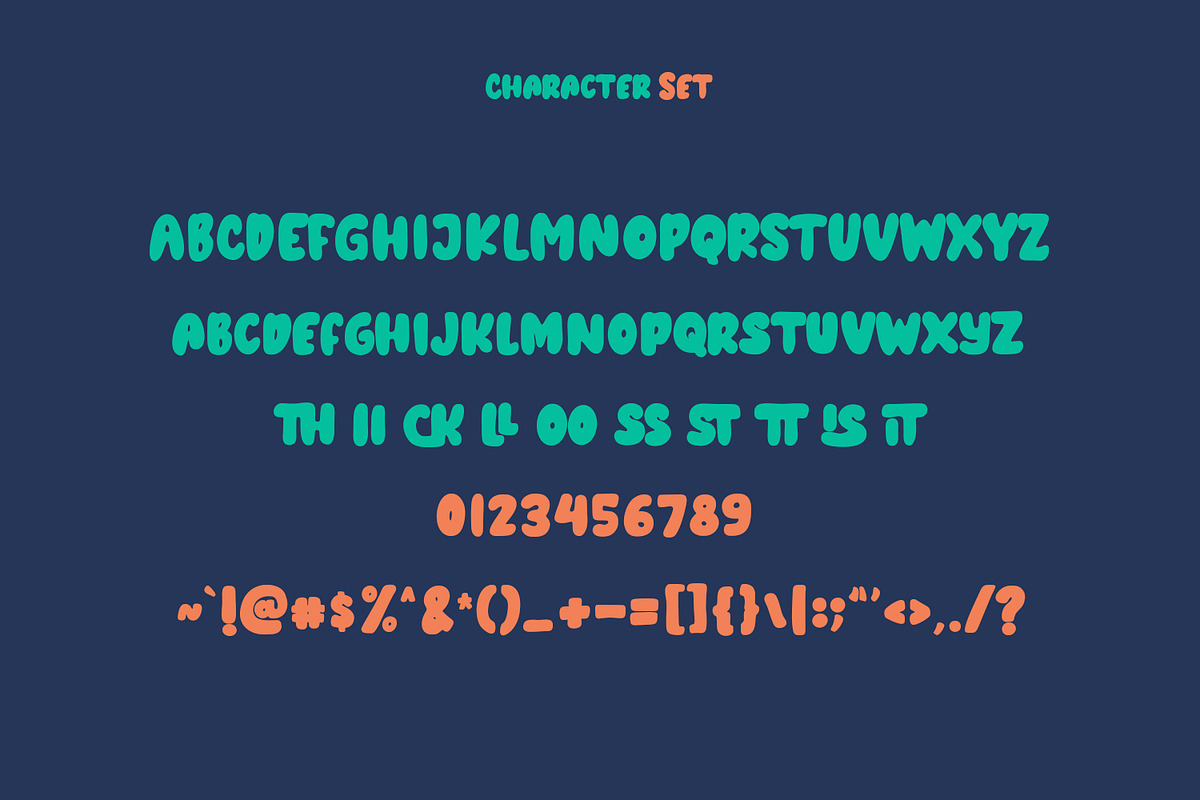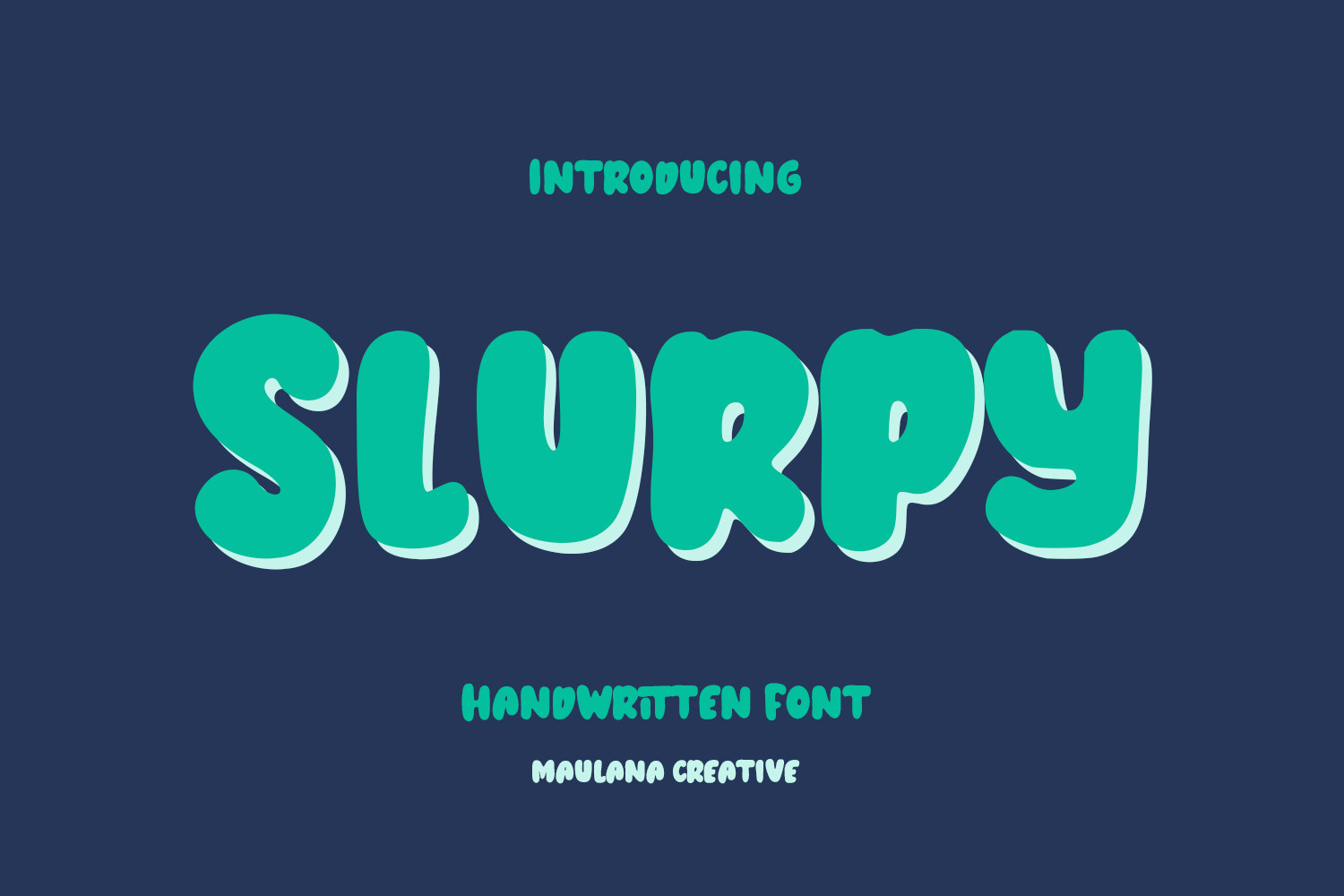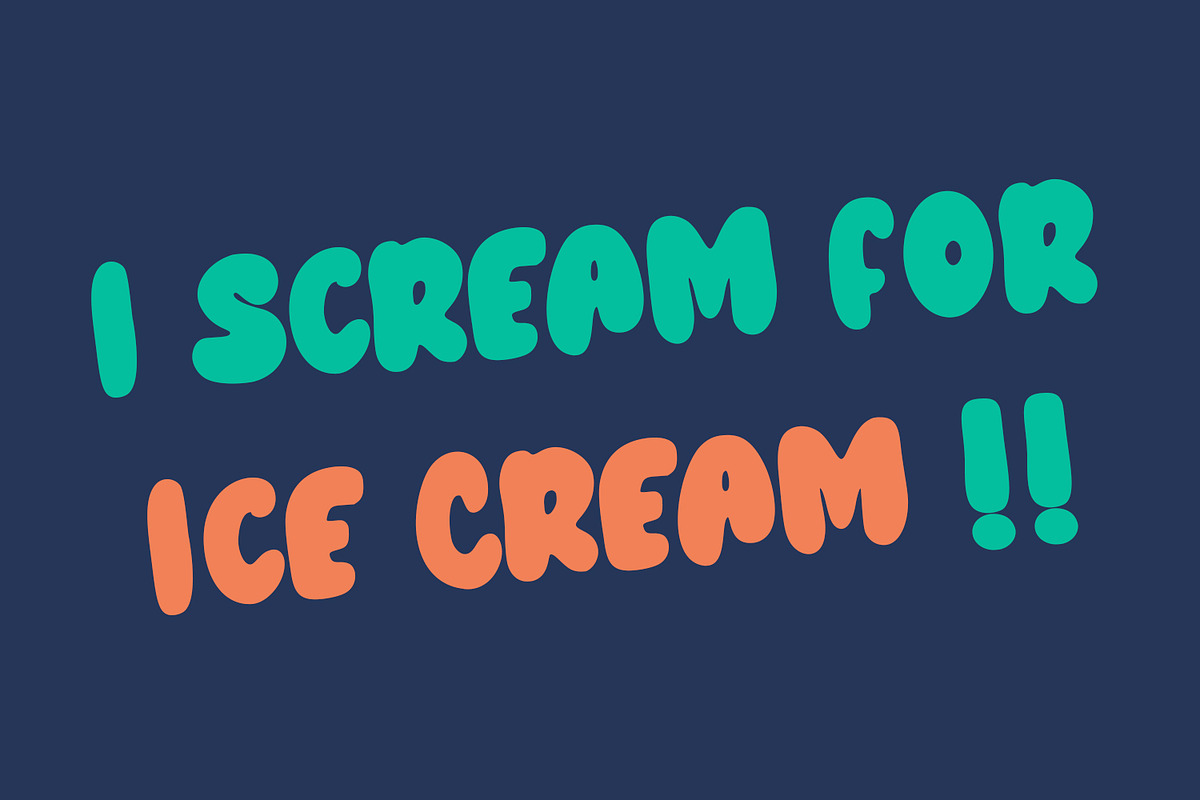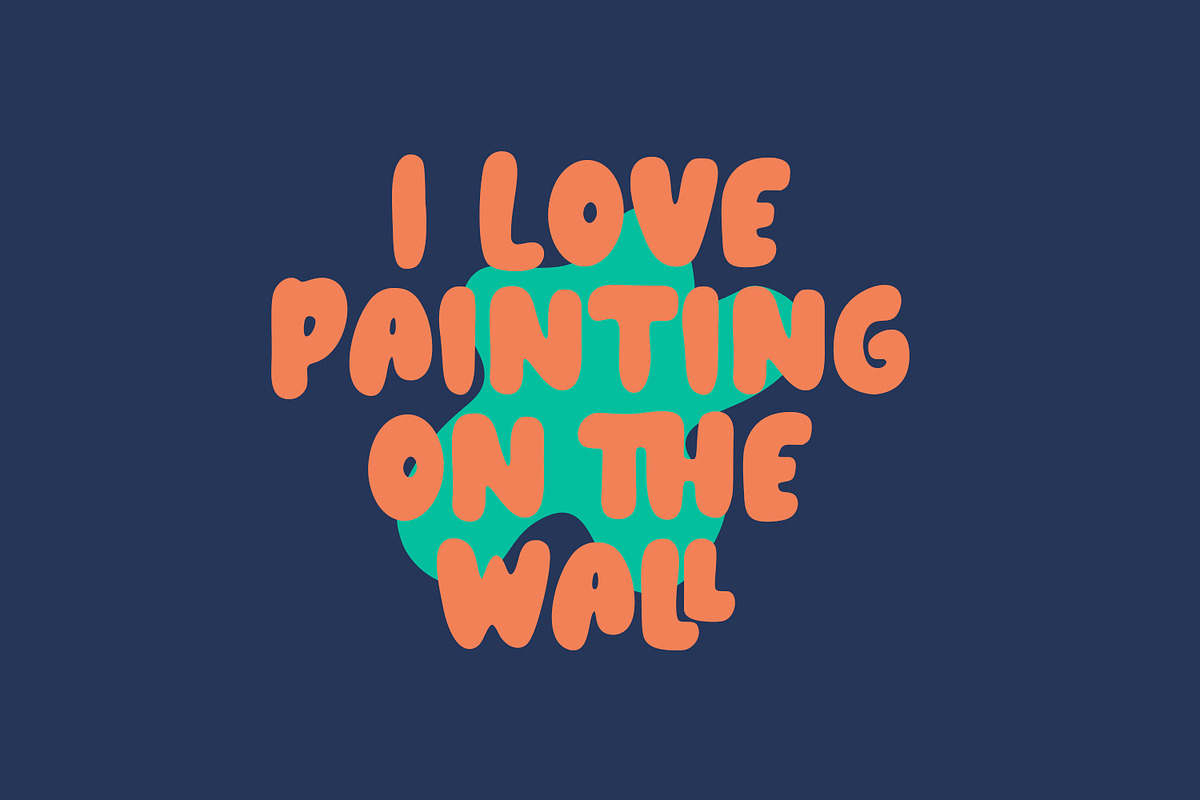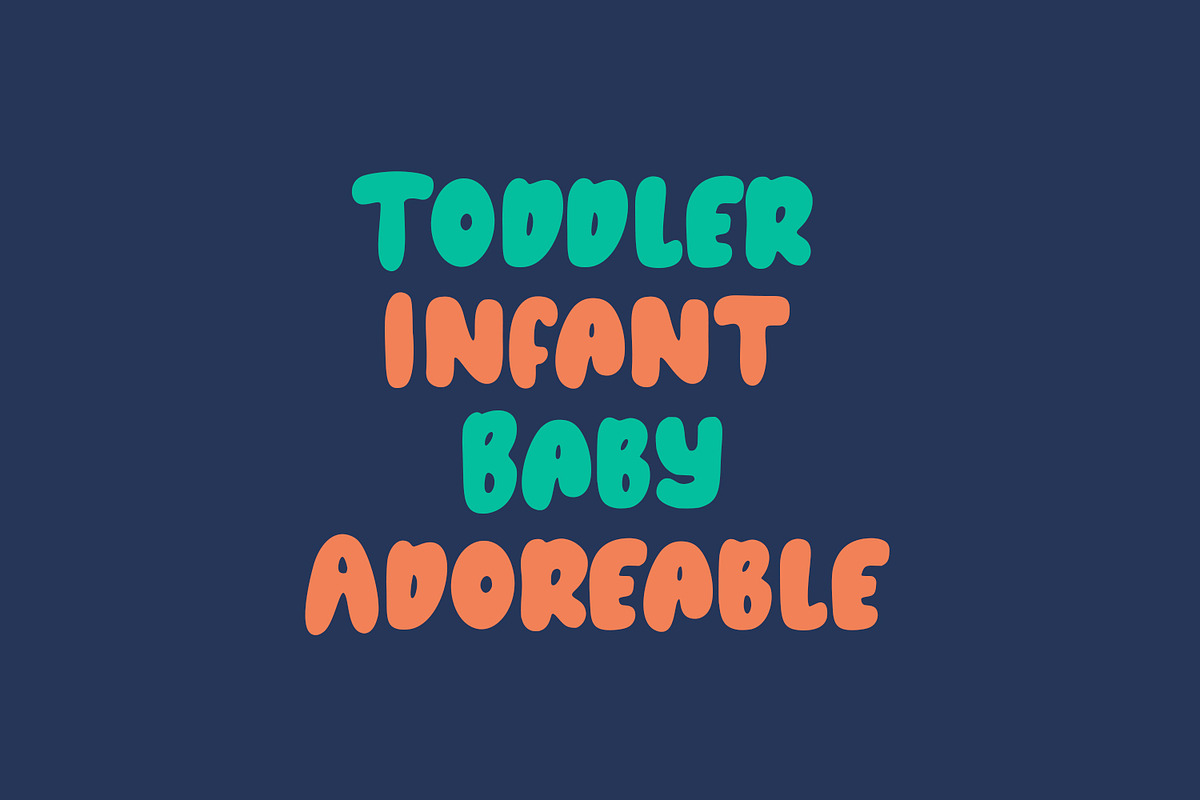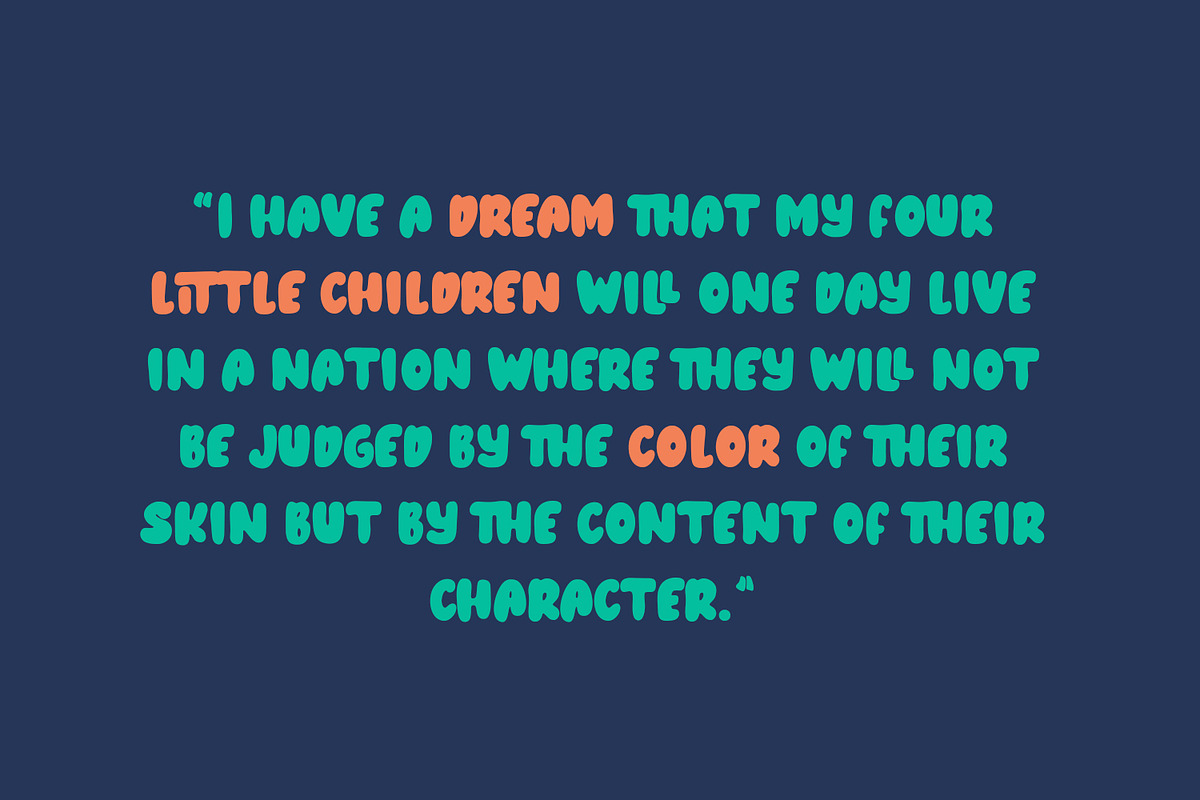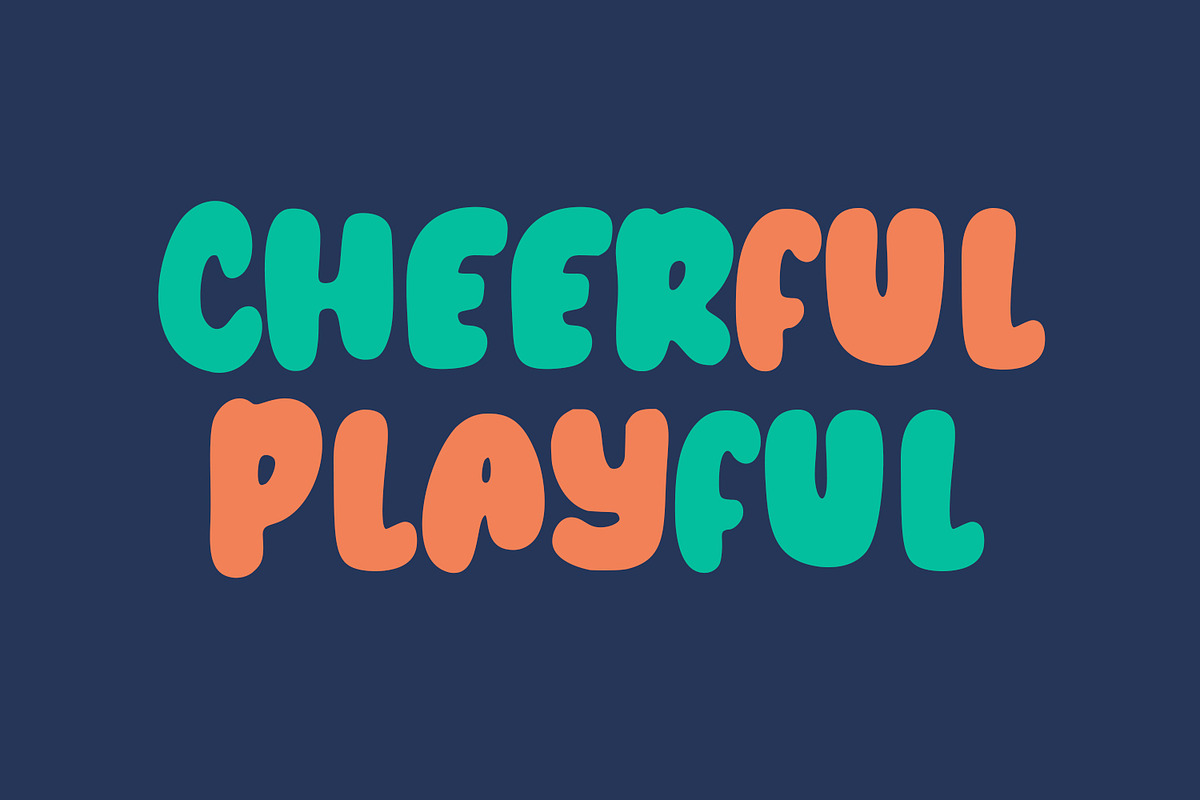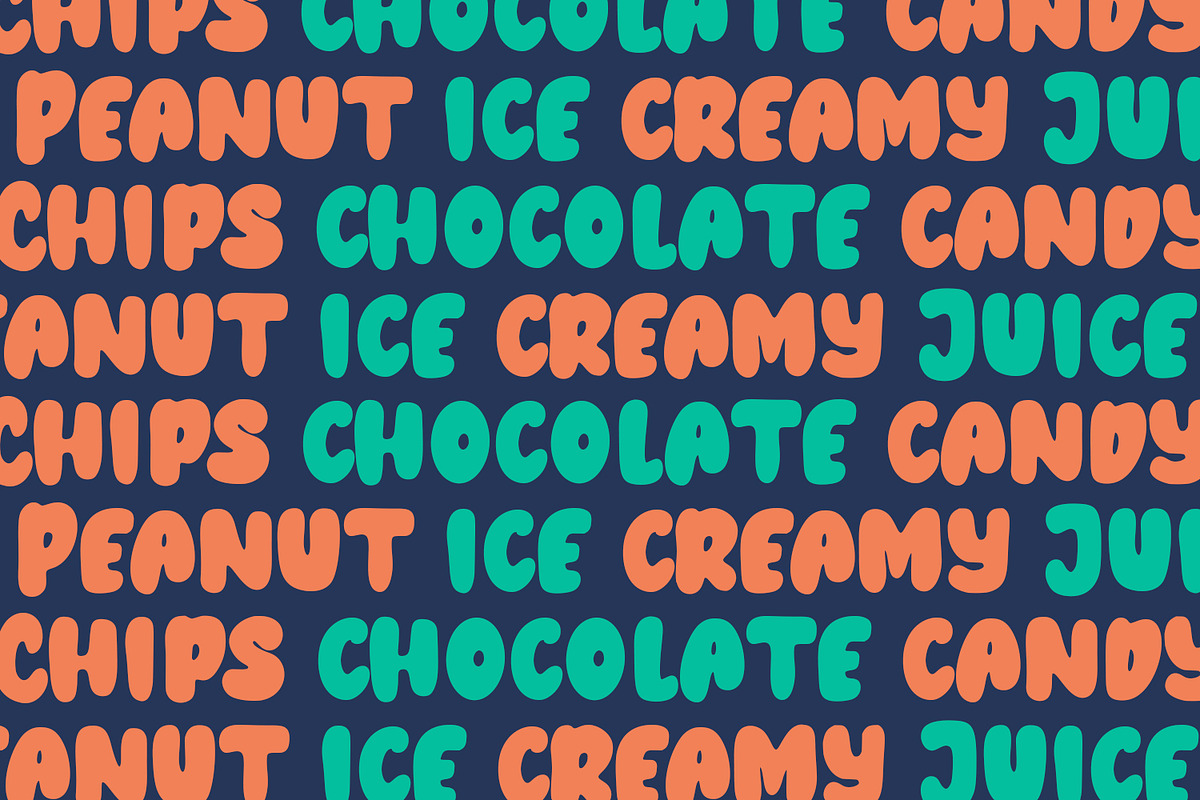
Slurpy Handwritten Font
Slurpy is a casual wavy handwritten display font. With bold stroke, fun character. To give you an extra creative work. Slurpy font support multilingual more than 100+ language. This font is good for logo design, Social media, Movie Titles, Books Titles, a short text even a long text letter and good for your secondary text font with sans or serif. Make a stunning work with Slurpy font.